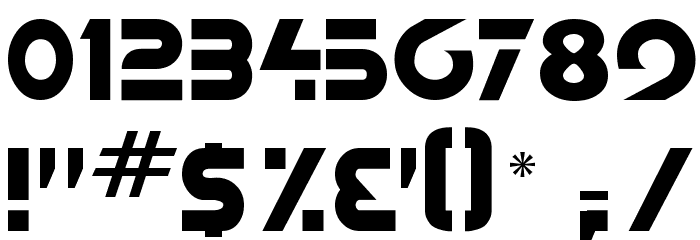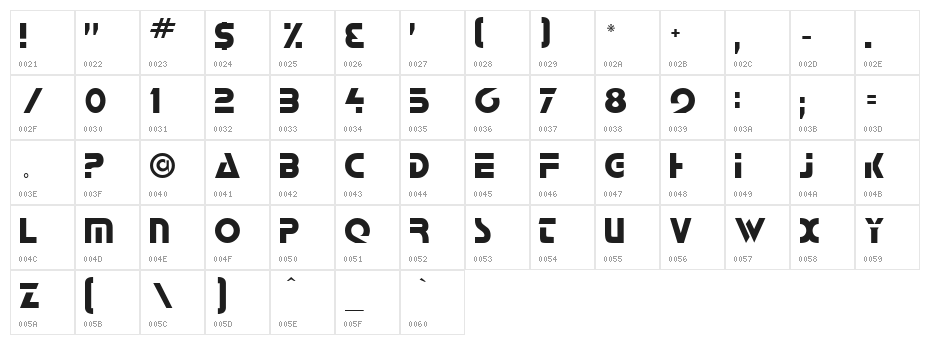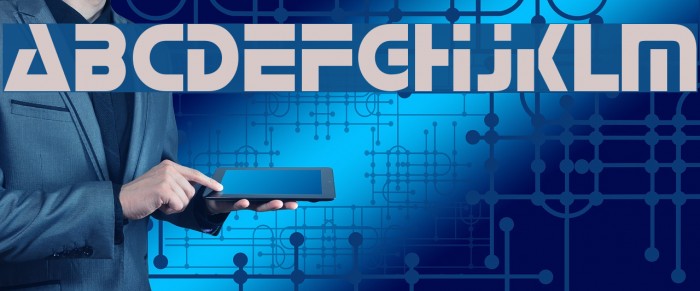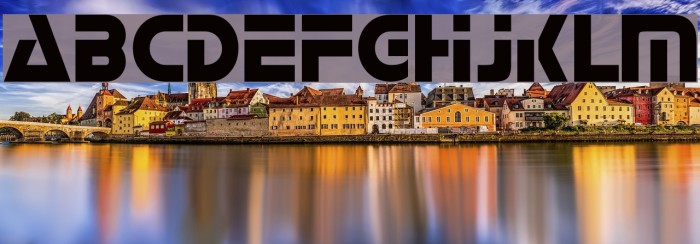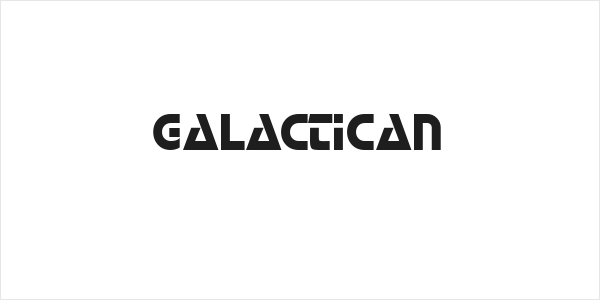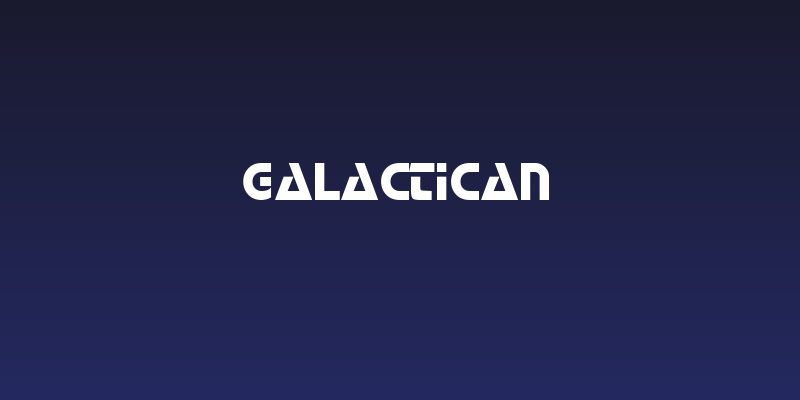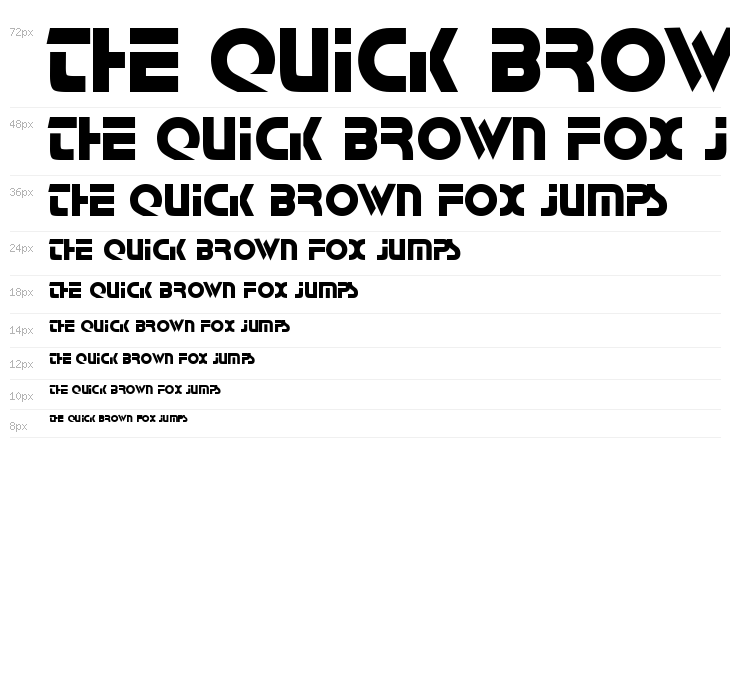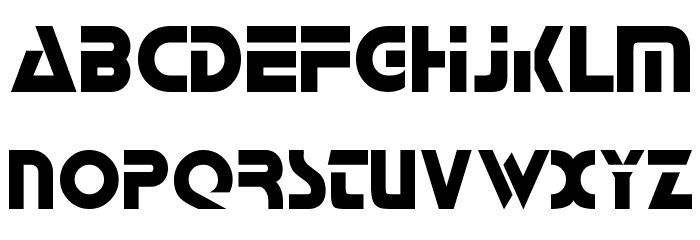
Galactican Font
Galactican Description
This font features a bold and futuristic design with geometric shapes and sharp angles. The characters are constructed with a distinct stencil-like appearance, where certain parts of the letters are intentionally disconnected, creating a dynamic and modern look. The uppercase and lowercase letters maintain a consistent style, emphasizing symmetry and balance. The numerals and special characters follow the same design principles, ensuring uniformity across all glyphs. This font's unique style makes it ideal for projects that require a strong visual impact and a contemporary feel.
| Proposed Projects | Ideal for sci-fi themed designs, technology branding, video game titles, and modern posters. |